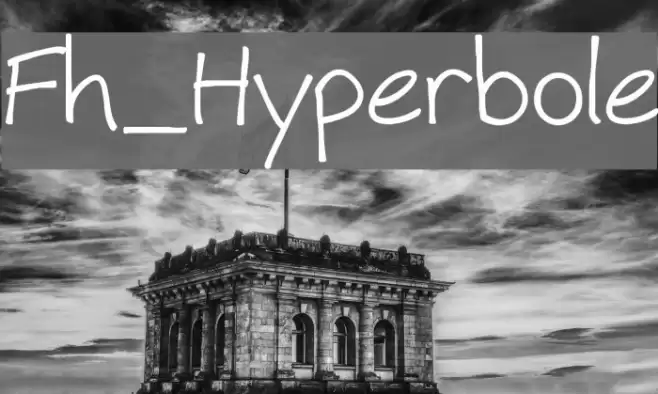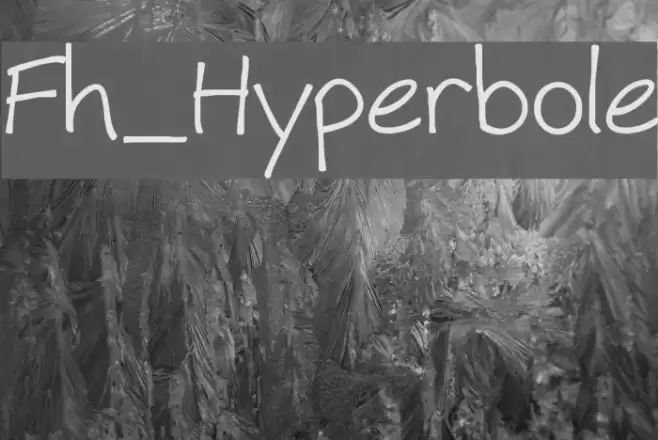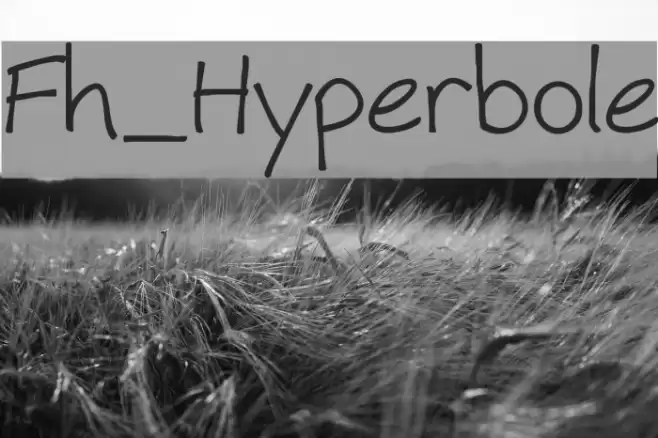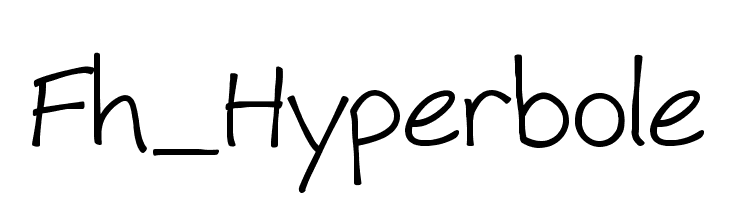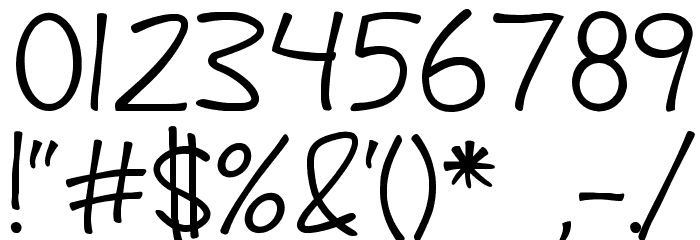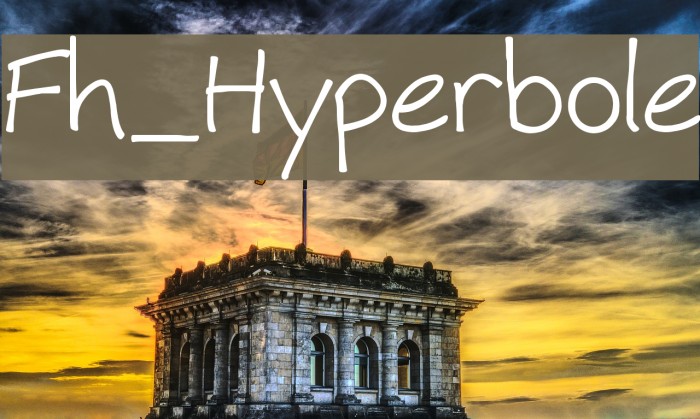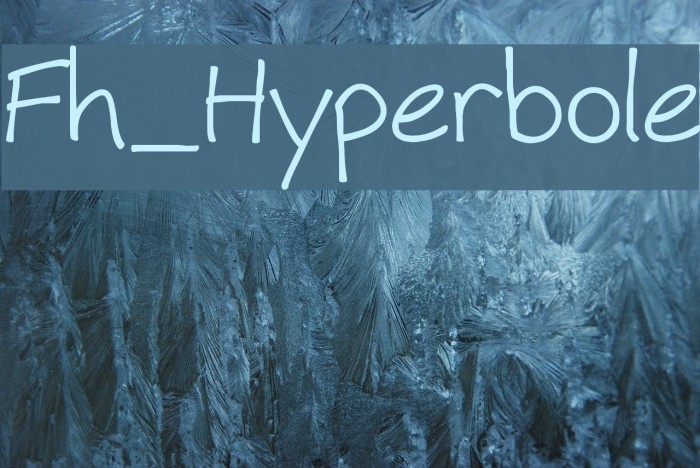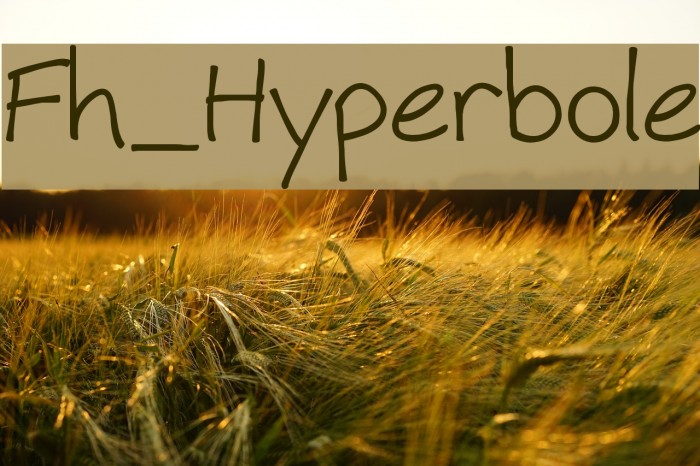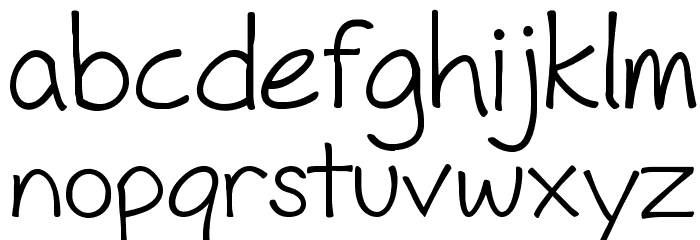
Fh_Hyperbole Font
Fh_Hyperbole Description
This font features a playful and informal handwritten style, characterized by its smooth, flowing lines and slightly irregular shapes. The uppercase letters are bold and prominent, while the lowercase letters maintain a consistent height, creating a harmonious balance. The numerals are rounded and easy to read, complementing the overall casual aesthetic. Special characters are designed with the same playful touch, making them fit seamlessly with the rest of the typeface. This font exudes a friendly and approachable vibe, perfect for projects that require a personal touch.
A playful, handwritten font with smooth, flowing lines and a casual aesthetic from Handwritten fonts.
- Proposed Projects: Ideal for greeting cards, children's books, casual branding, and social media graphics.
- Overall Style: Casual
- Use Case: Logos, Headlines, Informal Text